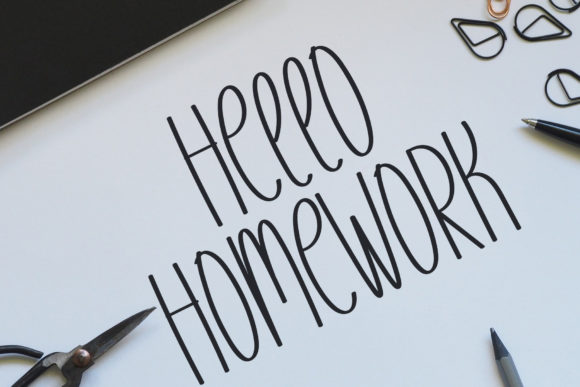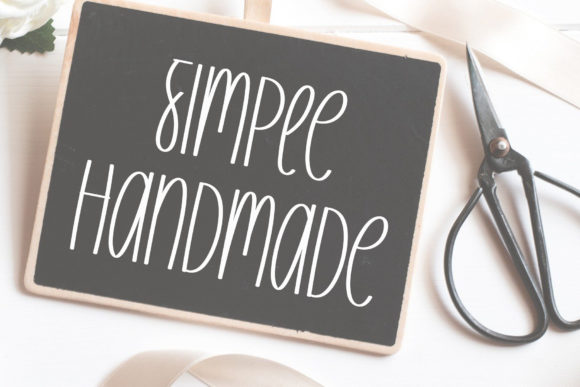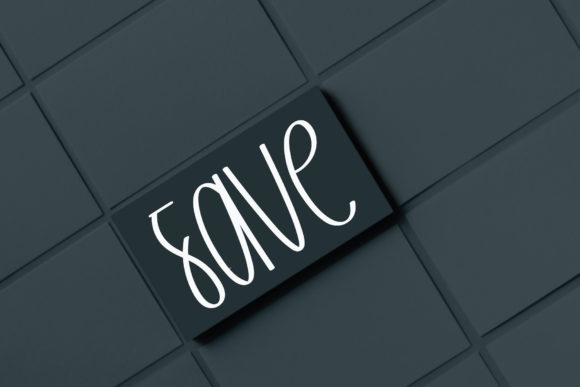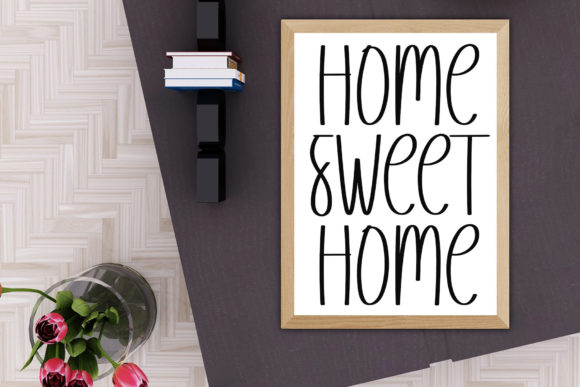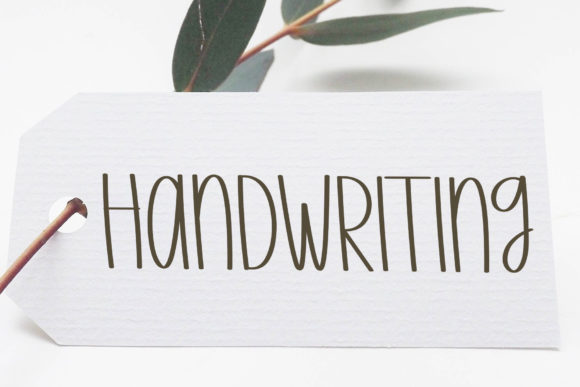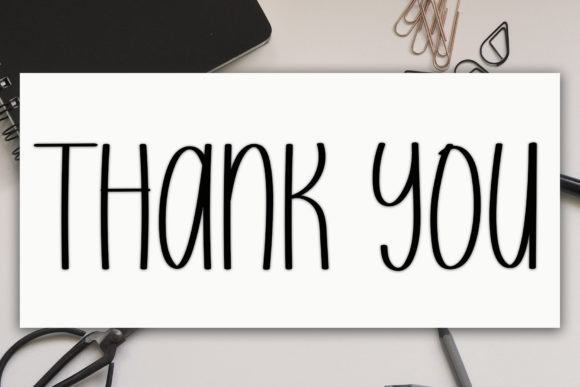
Happyness Font: Elevate Your Designs with Elegance and Flair
In the world of typography, a font can make or break a design. It has the power to evoke emotions, convey messages, and add a touch of personality to any creative project. If you’re a designer, crafter, or simply someone who loves to dabble in DIY projects, you’re likely always on the lookout for the perfect font to bring your ideas to life. That’s where the Happyness Font comes in – a delicate, elegant, and flowing handwritten font that’s sure to add a touch of sophistication to your designs.
The Beauty of Happyness Font
The Happyness Font is a stunning example of handwritten typography. Its delicate and elegant strokes are carefully crafted to create a beautiful and well-balanced character set. Each letter is a work of art, with flowing curves and subtle nuances that give the font a sense of movement and energy. Whether you’re working on a logo, a poster, a card, or any other design project, the Happyness Font is sure to add a touch of elegance and refinement.
One of the standout features of the Happyness Font is its versatility. Its classic and timeless design makes it suitable for a wide range of projects, from modern and trendy to vintage and rustic. Whether you’re going for a bold and dramatic look or a soft and subtle one, the Happyness Font is sure to adapt and complement your design.
Why Choose Happyness Font?
So, what sets the Happyness Font apart from other fonts out there? Here are just a few reasons why designers and crafters love working with this beautiful font:
- Elegant and refined: The Happyness Font has a sophisticated and elegant feel that’s perfect for high-end designs, luxury brands, and special occasions.
- Versatile: The font’s classic design makes it suitable for a wide range of projects, from modern and trendy to vintage and rustic.
- Beautifully balanced: Each character is carefully crafted to create a beautiful and well-balanced character set that’s easy on the eyes.
- Easy to read: Despite its elegant and flowing design, the Happyness Font is surprisingly easy to read, making it perfect for body text and longer blocks of text.
How to Use Happyness Font in Your Designs
Ready to add the Happyness Font to your design toolkit? Here are a few ideas to get you started:
- Logos and branding: Use the Happyness Font to create a stunning logo or brand identity that’s sure to make a lasting impression.
- Posters and flyers: Add a touch of elegance and sophistication to your posters and flyers with the Happyness Font.
- Cards and invitations: The Happyness Font is perfect for creating beautiful and elegant cards and invitations for special occasions.
- Packaging and labels: Use the Happyness Font to add a touch of refinement and luxury to your packaging and labels.
Tips and Tricks for Working with Happyness Font
Here are a few tips and tricks to help you get the most out of the Happyness Font:
- Experiment with colors: The Happyness Font looks stunning in a range of colors, from classic black and white to bold and bright hues.
- Play with pairings: Try pairing the Happyness Font with other fonts to create a unique and eye-catching combination.
- Pay attention to spacing: Make sure to adjust the spacing and kerning to ensure that your text looks beautiful and well-balanced.